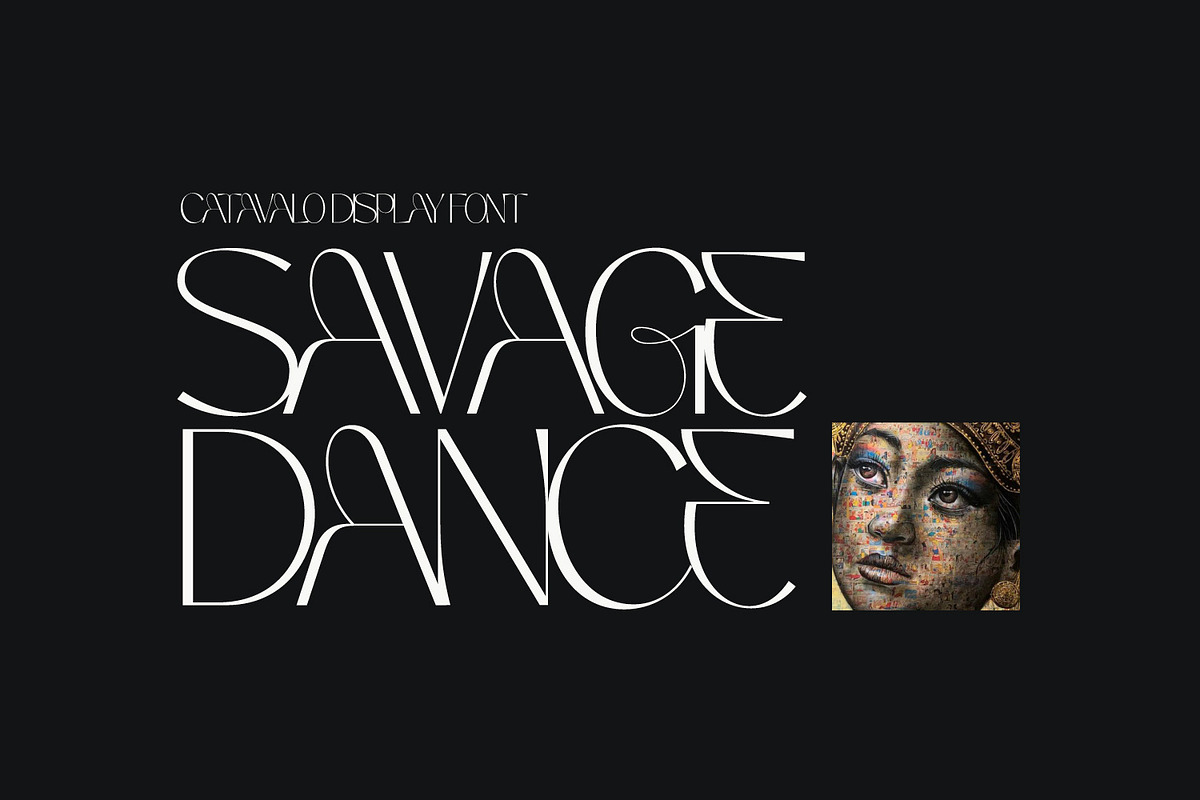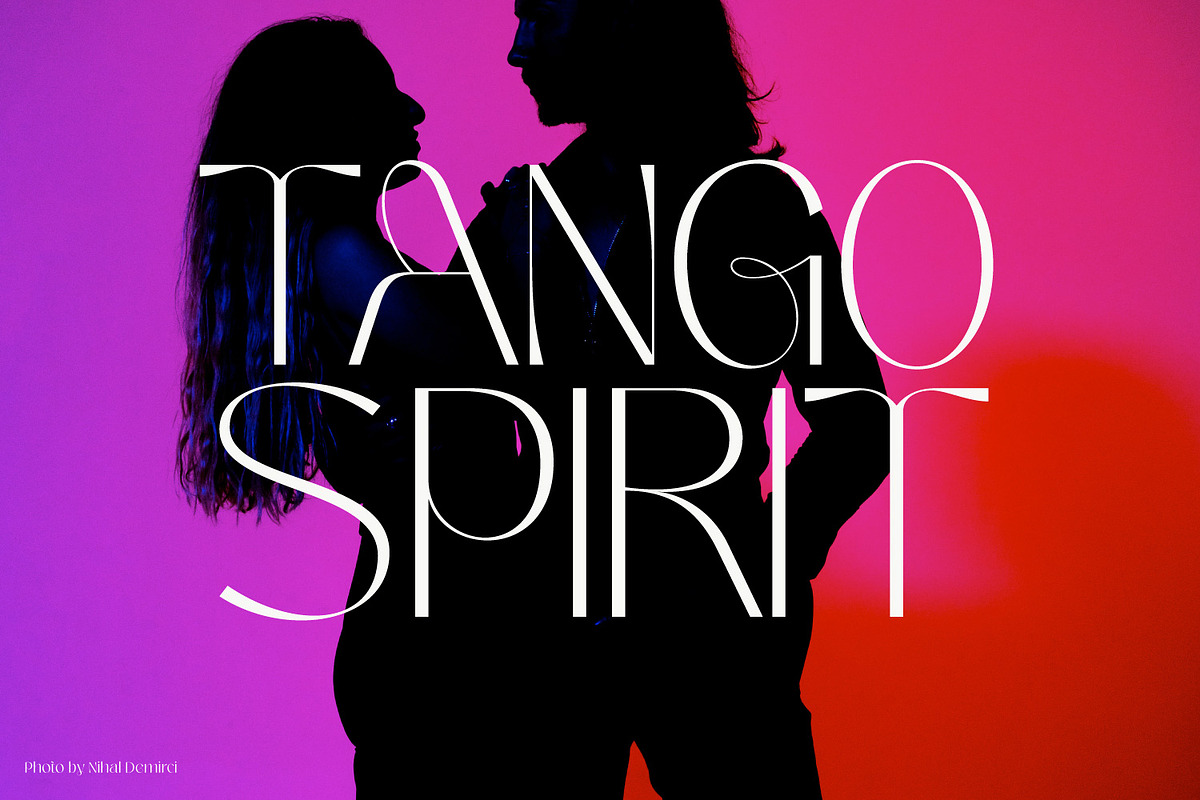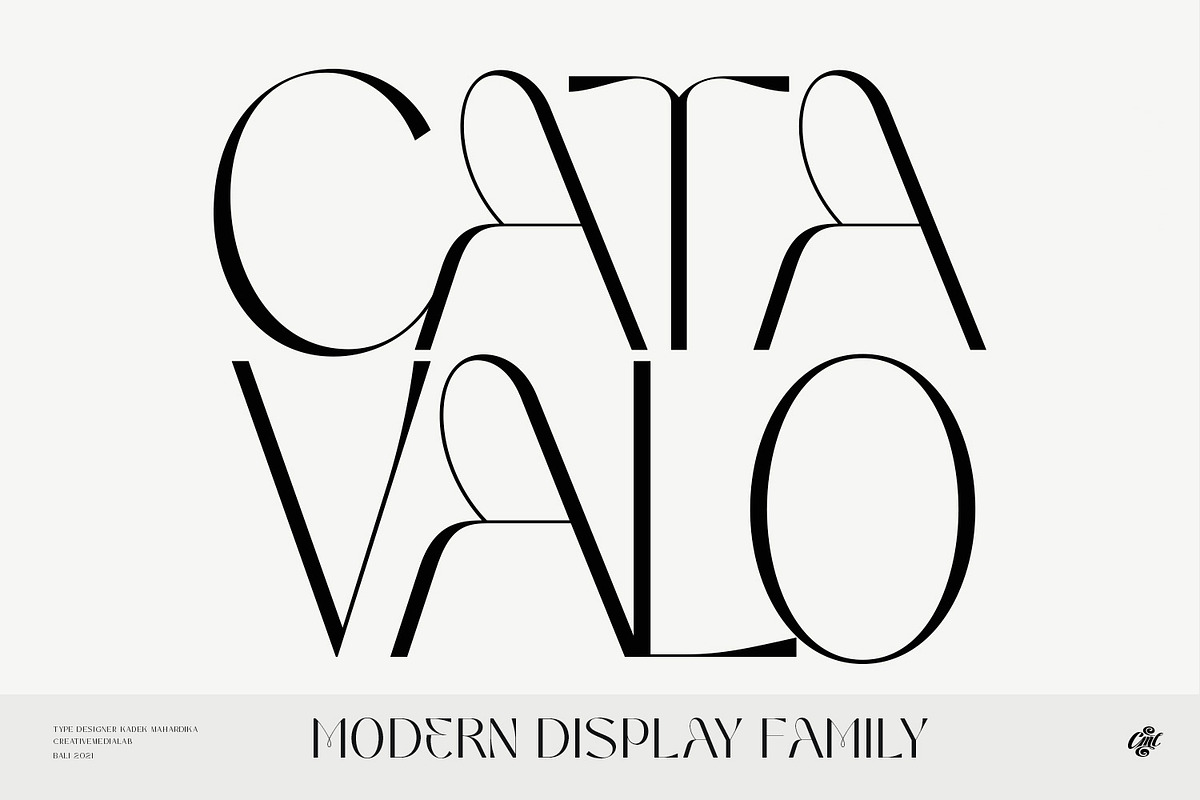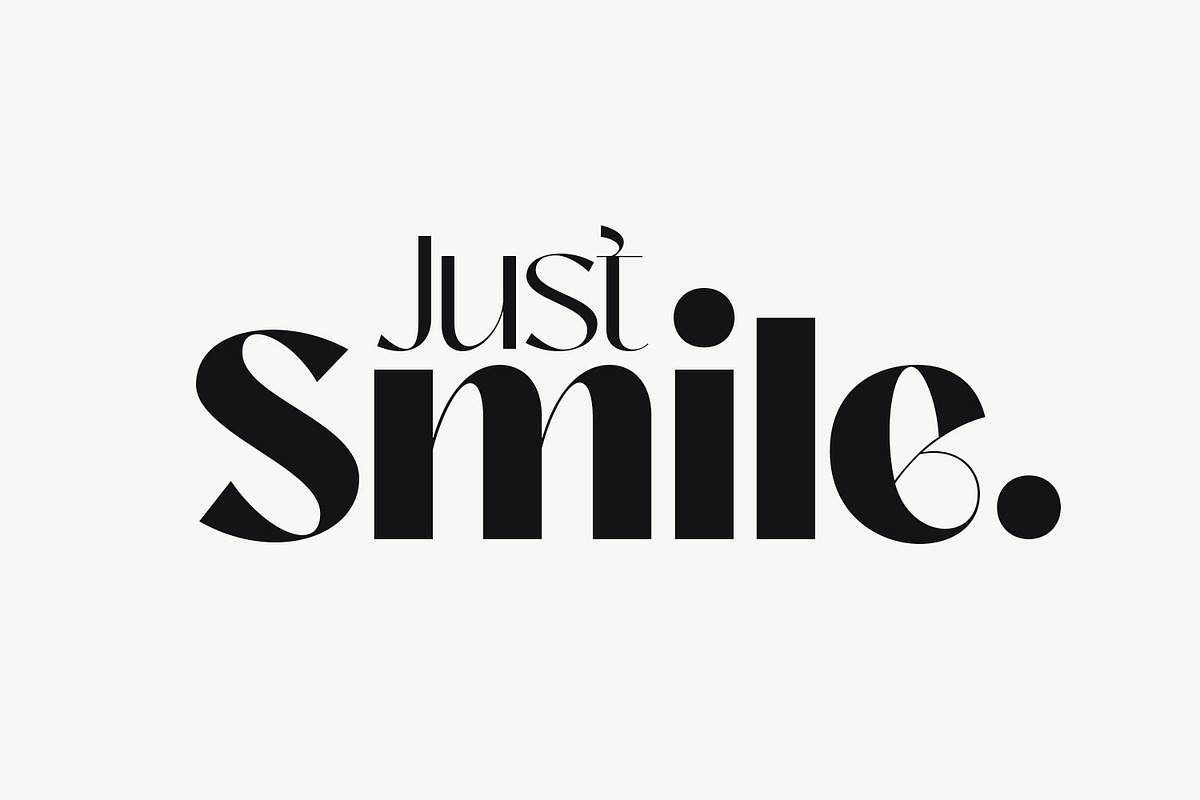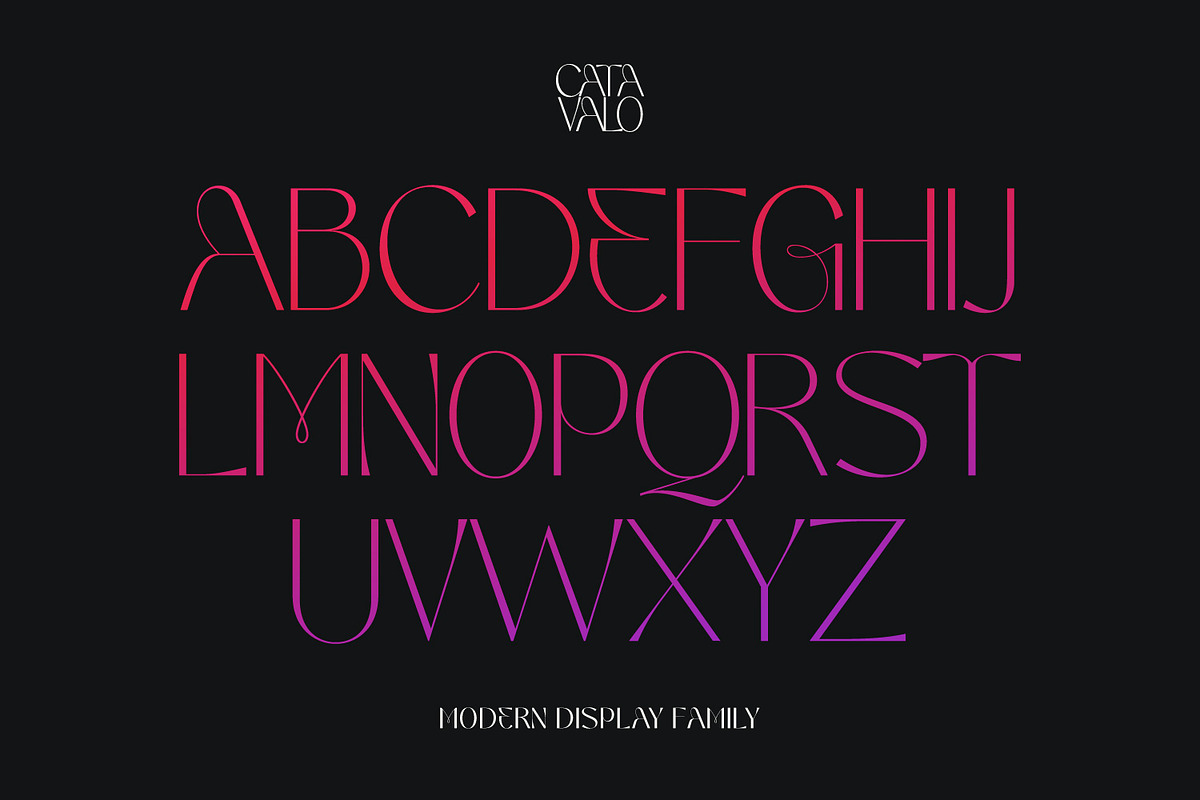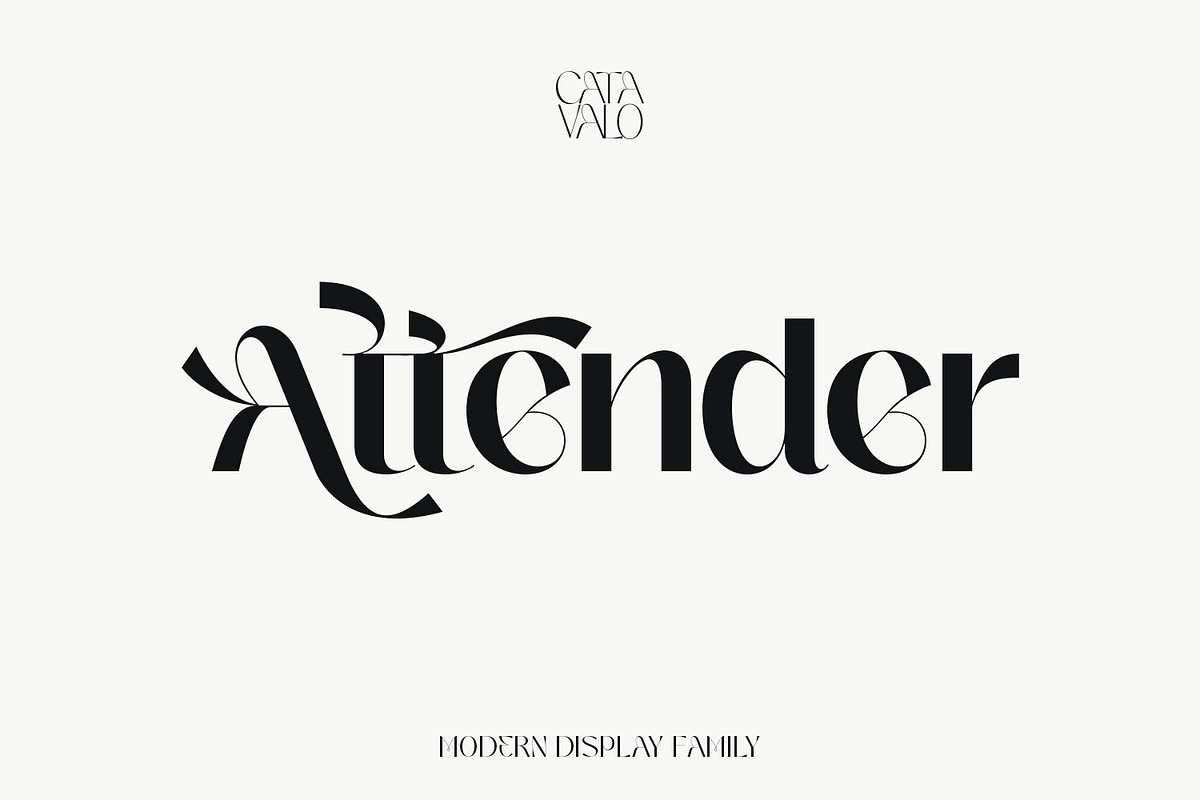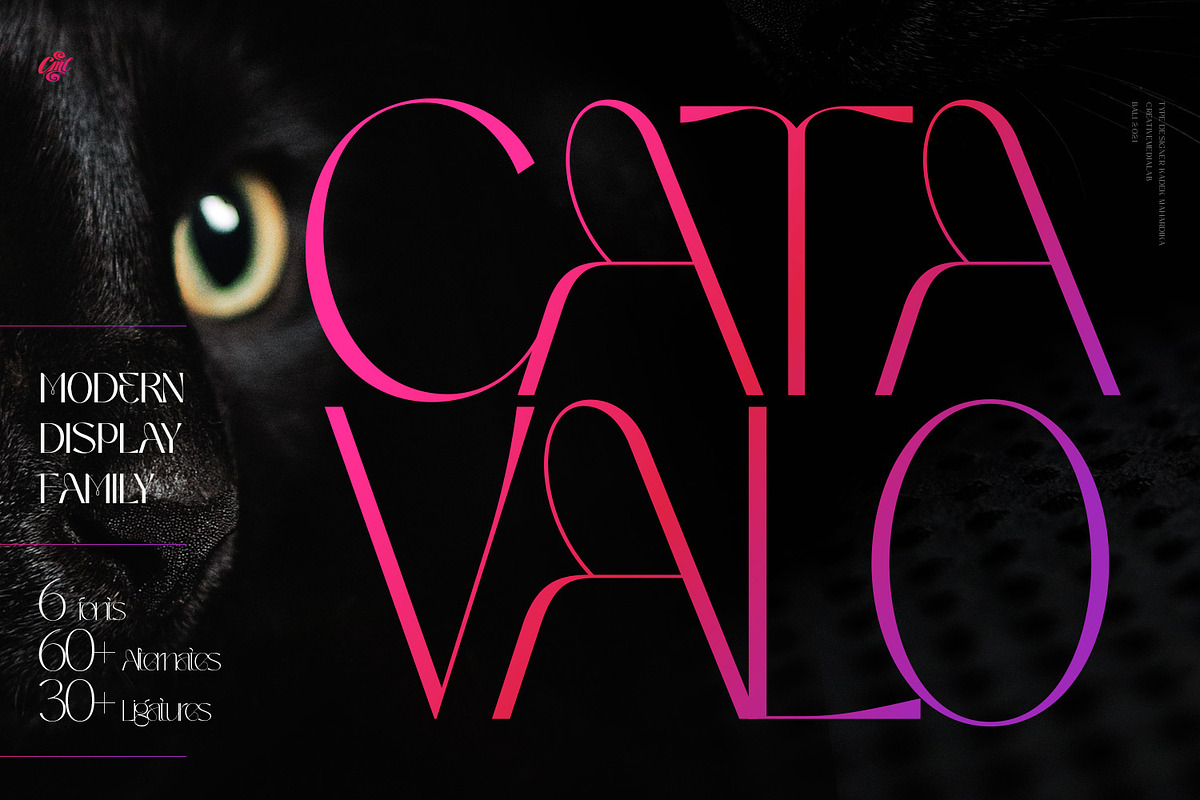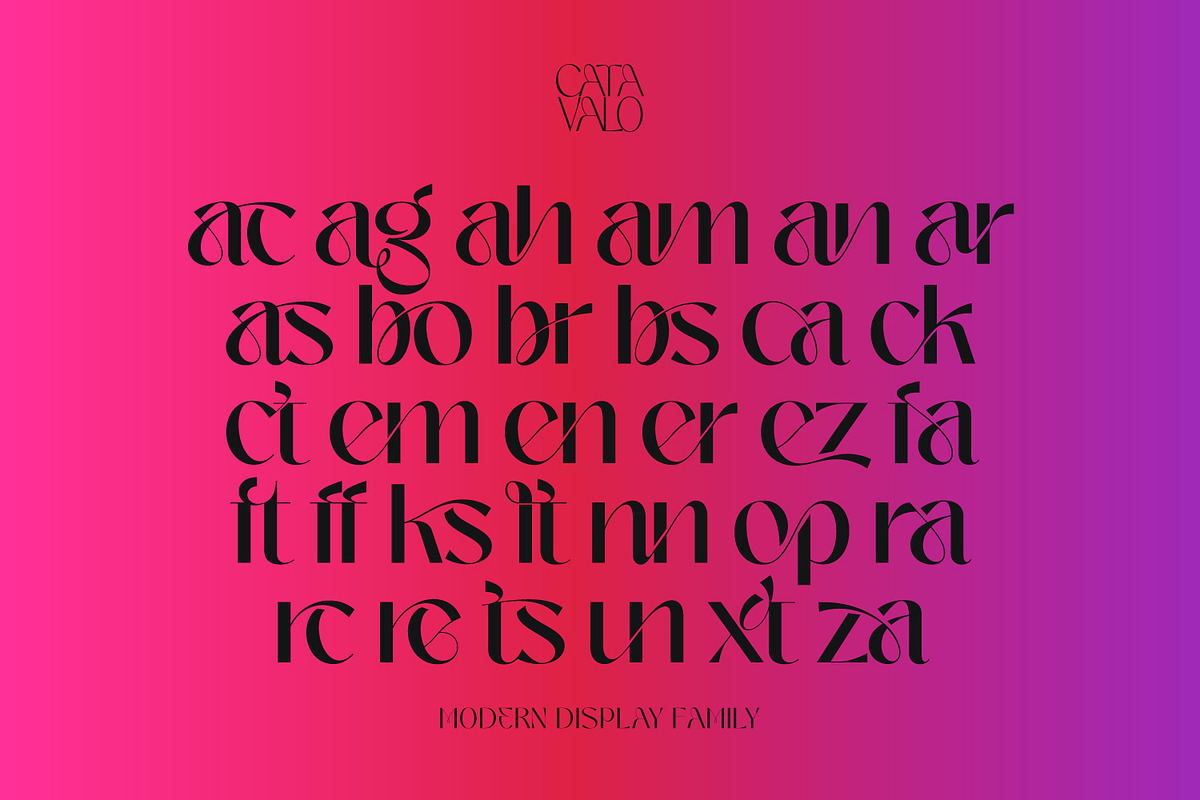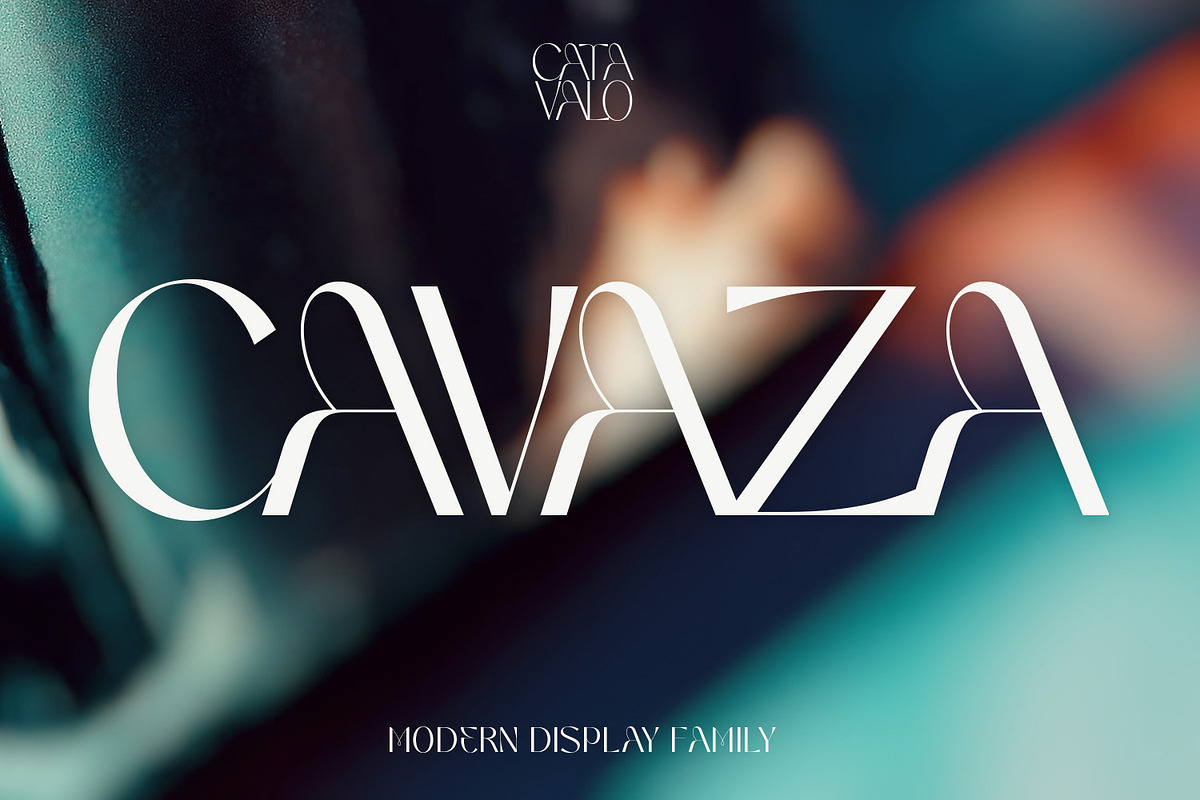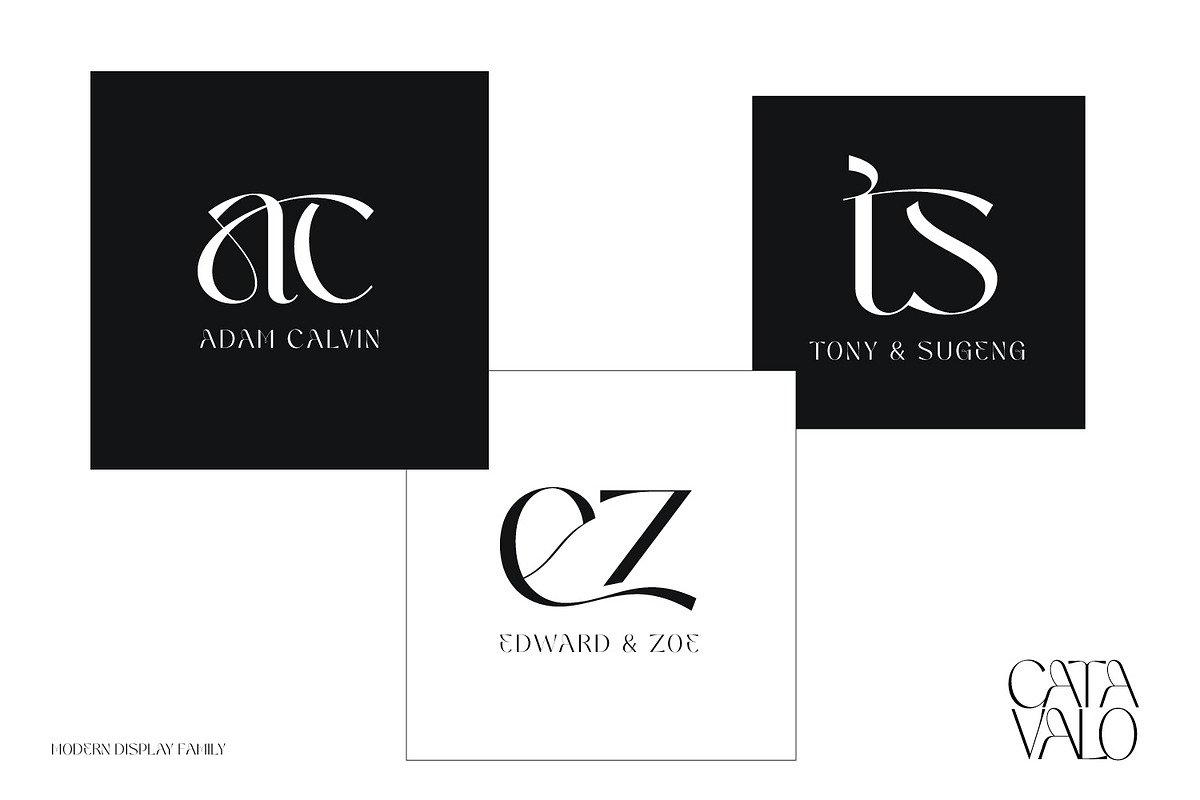
Catavalo - Modern display family
Introducing Catavalo Display family.
Catavalo is another stylish family from our collection. This unique family is perfect for headers, displays or any fashion branding related concept.
Contains 6 weights with tons of alternates and ligatures to play with.
Supported Languages
Western Europe, Central/Eastern Europe, Baltic, Turkish, Romanian